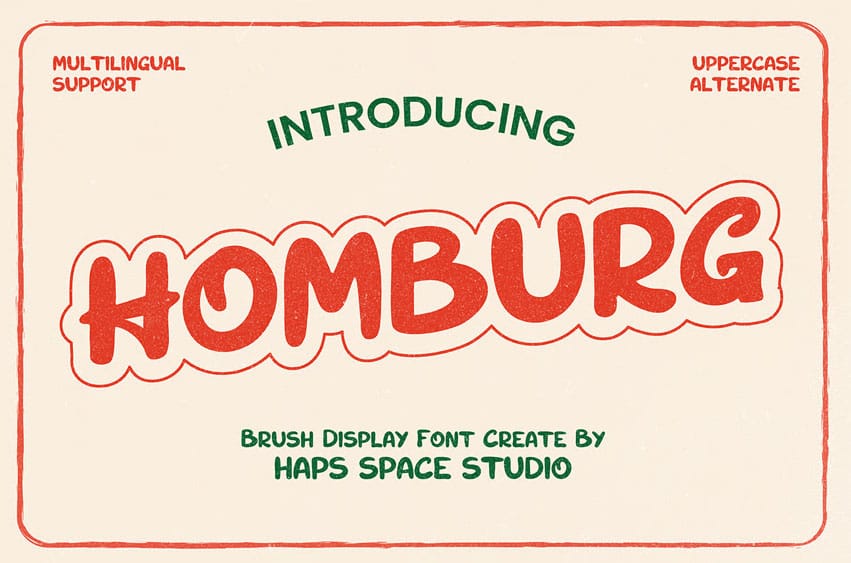
Homburg Font is a quirky and bold brush display font that brings a nostalgic charm and playful personality to your designs. Inspired by hand-painted signage and retro packaging, Homburg is perfect for projects that want to feel fun, warm, and inviting.
- Unique Letterforms